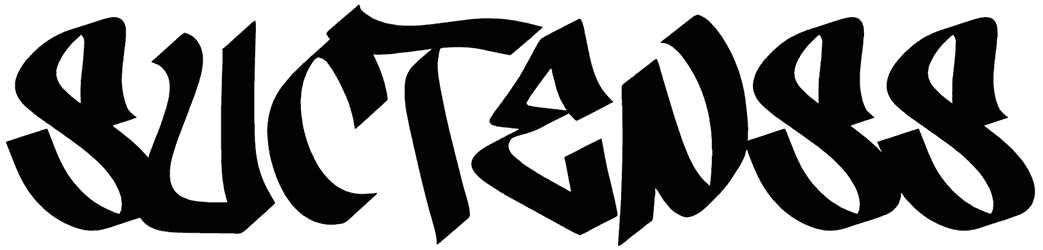
Whether it’s a kids’ zone poster or a Christmas card, you can totally count on this bulky graffiti font to create capturing words. The characters can turn into colorful balloons and surprise your viewers. Let’s use the Bazoka font for your new creative layout and see how unique it will become.